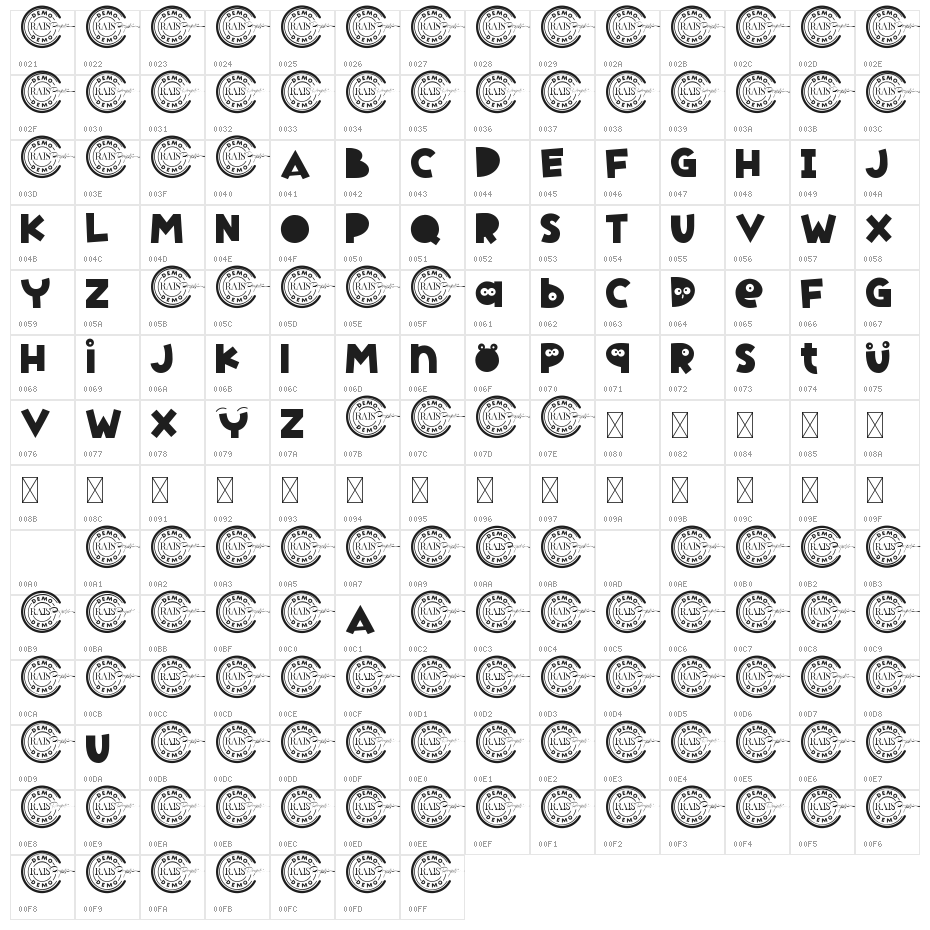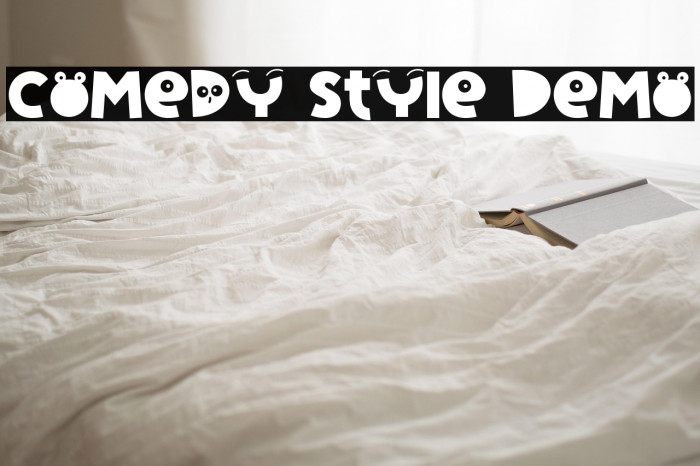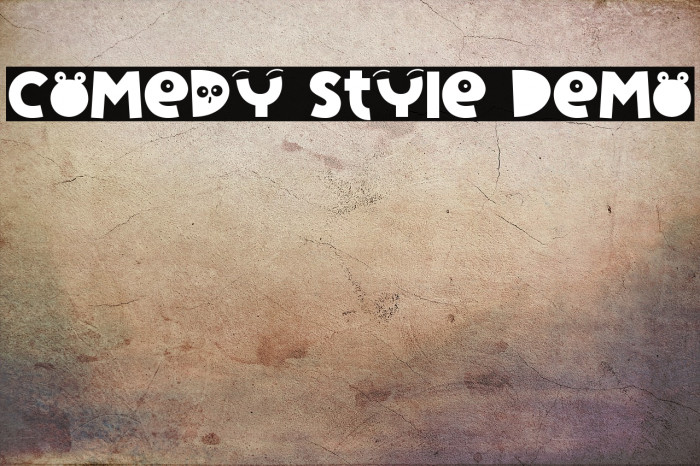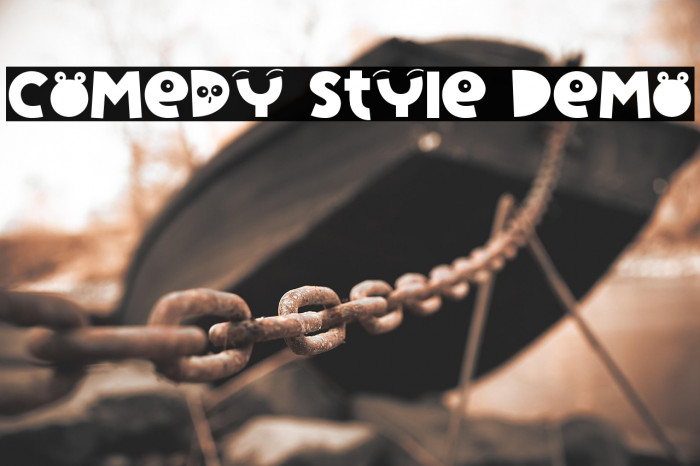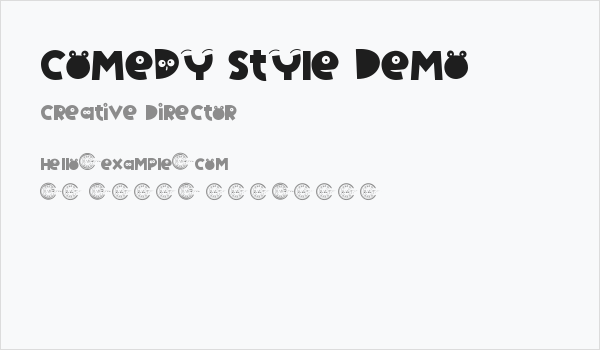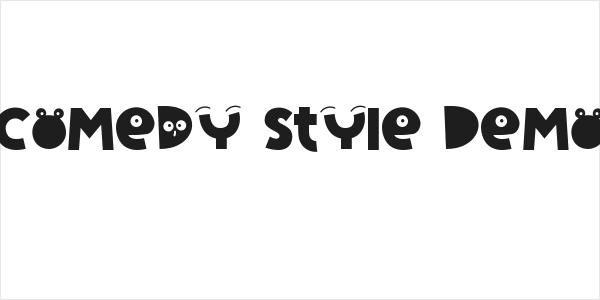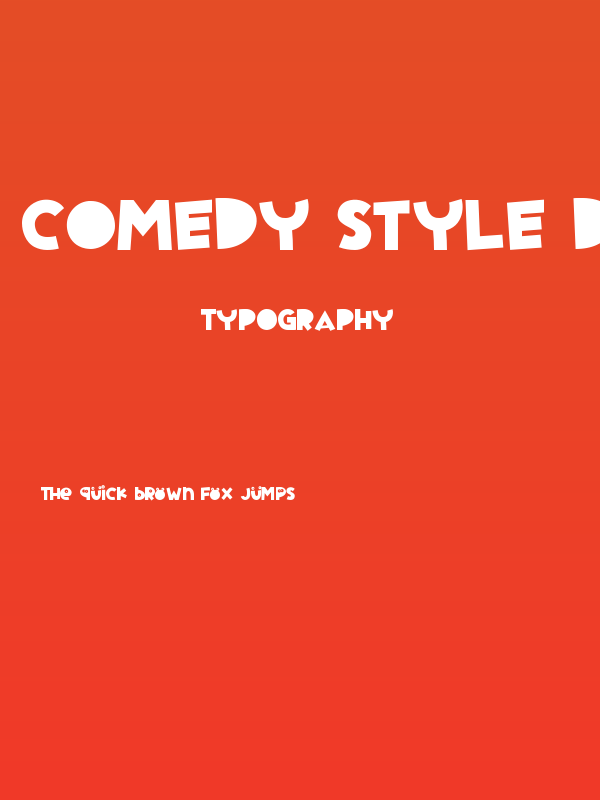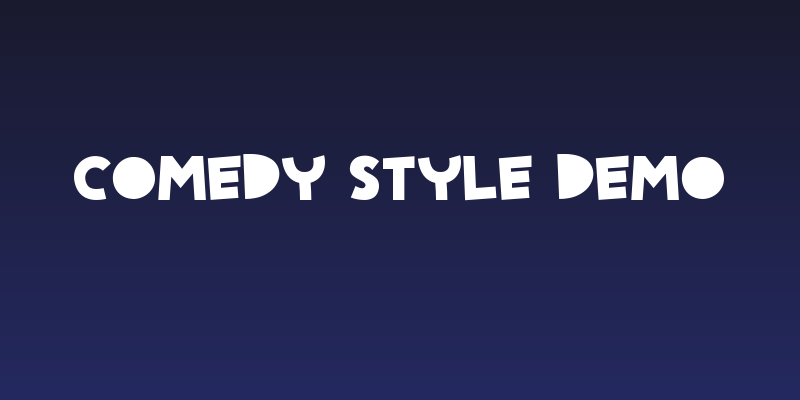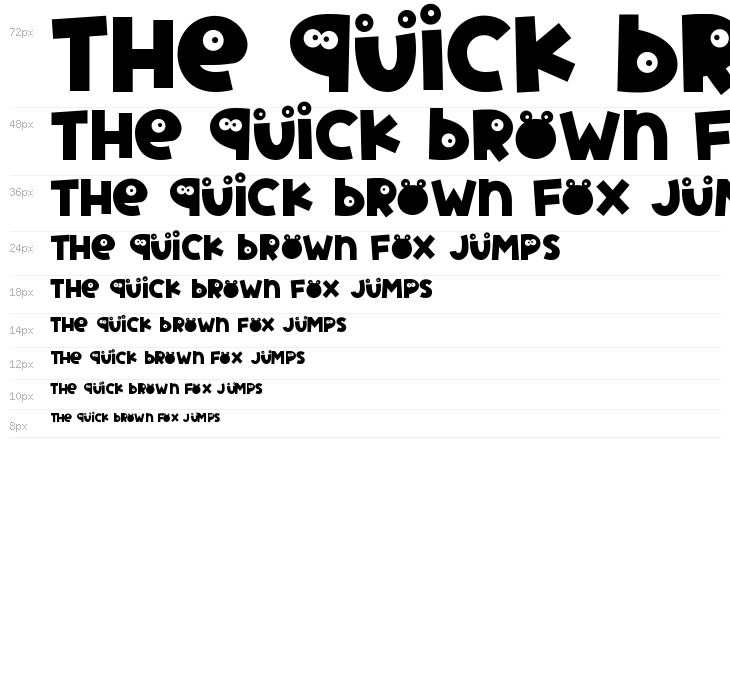
Comedy Style Demo Font
Comedy Style Demo Description
This playful and whimsical font features bold, exaggerated characters with a quirky, cartoonish style. The uppercase letters are slightly tilted, adding a sense of fun and movement, while the lowercase letters incorporate unique elements like eyes and accents, enhancing its comedic appeal. The font is characterized by its thick strokes and rounded edges, giving it a friendly and approachable look. The overall design is highly decorative, making it ideal for projects that require a lighthearted and entertaining touch.
| Overall Style | Whimsical, Playful |
| Proposed Projects | Ideal for children's books, comic strips, playful branding, party invitations, and any project that requires a humorous and engaging typeface. |